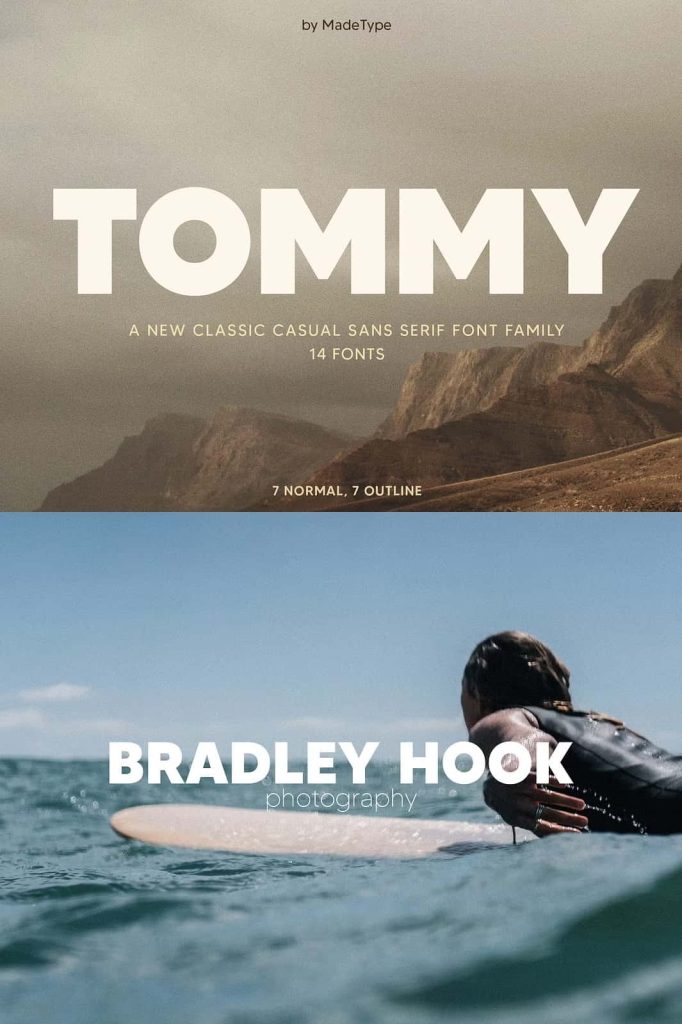
MADE TOMMY Font – Modern Elegance for Creative Projects
MADE TOMMY is a bold and modern sans-serif font designed to bring sophistication and clarity to every creative project. Whether you’re working on fashion editorials, branding materials, or online media, MADE TOMMY delivers a timeless design with clean lines and a professional edge. Its minimalistic style makes it the perfect choice for those who value simplicity with a strong visual statement.
Perfect Choice for Fashion and Branding
When it comes to fashion design, presentation is everything. MADE TOMMY enhances your brand identity with its sharp geometry and balanced proportions. This font is perfect for luxury fashion labels, boutique logos, and editorial layouts. It communicates confidence and style without overwhelming the design, ensuring that your message stays at the forefront. MADE TOMMY’s refined shapes make it ideal for lookbooks, product packaging, magazine titles, and high-end advertisements.
Versatile for Multiple Design Needs
MADE TOMMY is not limited to one type of project. Its versatility allows it to shine across various creative formats. Use it for magazine layouts, posters, blog headers, and business branding. The font’s clean and legible form also makes it an excellent choice for web design and digital publications. Designers often choose MADE TOMMY for websites and online portfolios due to its readability and elegant minimalism. It fits perfectly in any modern aesthetic, from creative startups to corporate branding.
Ideal for Invitations and Event Materials
Whether it’s a wedding invitation, photography showcase, or formal event announcement, MADE TOMMY provides a sophisticated touch. Its elegant yet simple form helps create memorable designs that leave a lasting impression. When paired with elegant layouts and subtle color palettes, MADE TOMMY elevates every piece of print or digital invitation. It’s a font that brings modern design principles into classic presentation formats.
Enhance Your Creative Workflow
MADE TOMMY helps designers maintain consistency across projects. Its structured and geometric appearance ensures balance and harmony in every layout. Use it to highlight titles, emphasize headlines, or create cohesive branding across various platforms. Whether you’re designing a poster, postcard, advertisement, or website, MADE TOMMY adapts seamlessly to your needs. Its strong visual identity ensures your projects look polished and professional every time.
Why Choose MADE TOMMY?
- Modern and clean sans-serif design suitable for multiple applications
- Perfect for fashion, magazines, branding, and web design
- Highly readable at any size – from posters to digital screens
- Ideal for creative professionals who want timeless elegance
- Balances minimalism and sophistication effortlessly
With MADE TOMMY, your creative vision stands out with confidence and clarity. Its simplicity ensures it never goes out of style, while its bold design gives your projects the attention they deserve. Perfect for designers, creatives, and brand developers who demand both functionality and beauty in their typography choices.
Conclusion: Create with Confidence
In today’s fast-paced design world, MADE TOMMY remains a dependable font that delivers high visual impact with ease. From print to digital applications, its elegant form and adaptable character make it a top choice for modern design. Use MADE TOMMY to bring sophistication and balance to every project you create, ensuring your designs are not only beautiful but unforgettable.